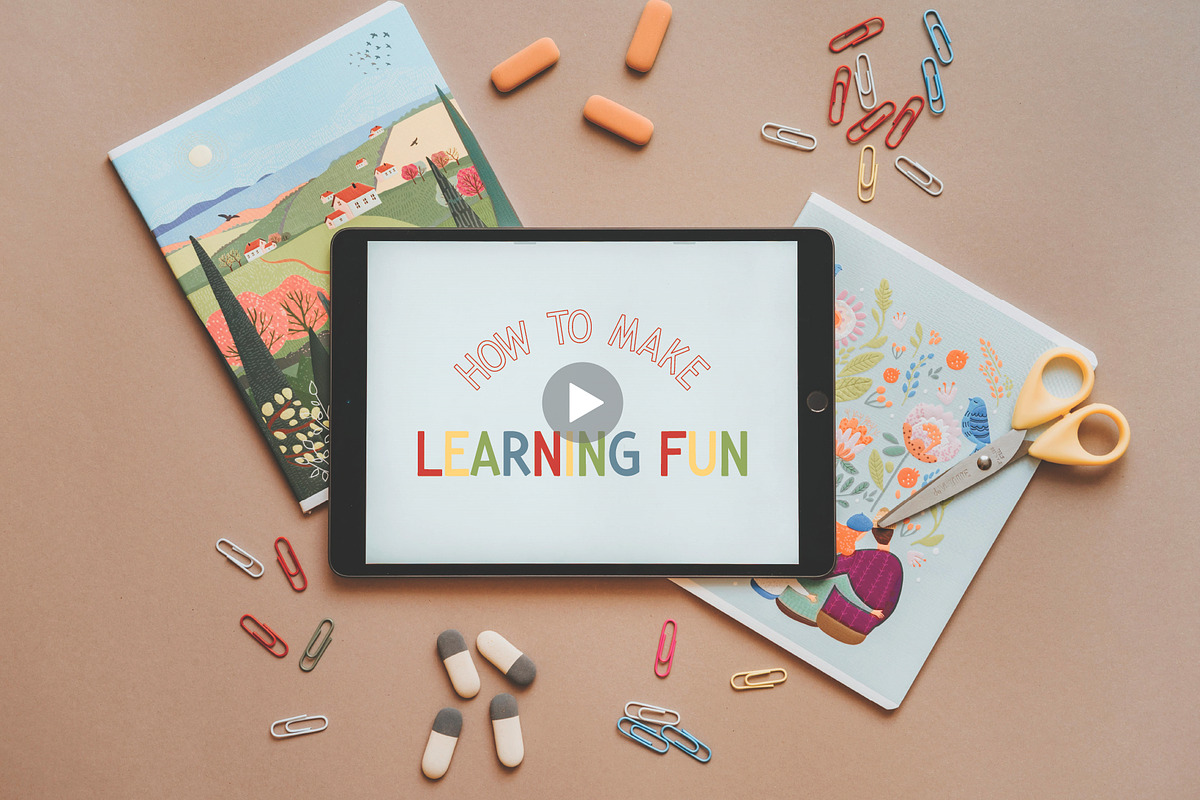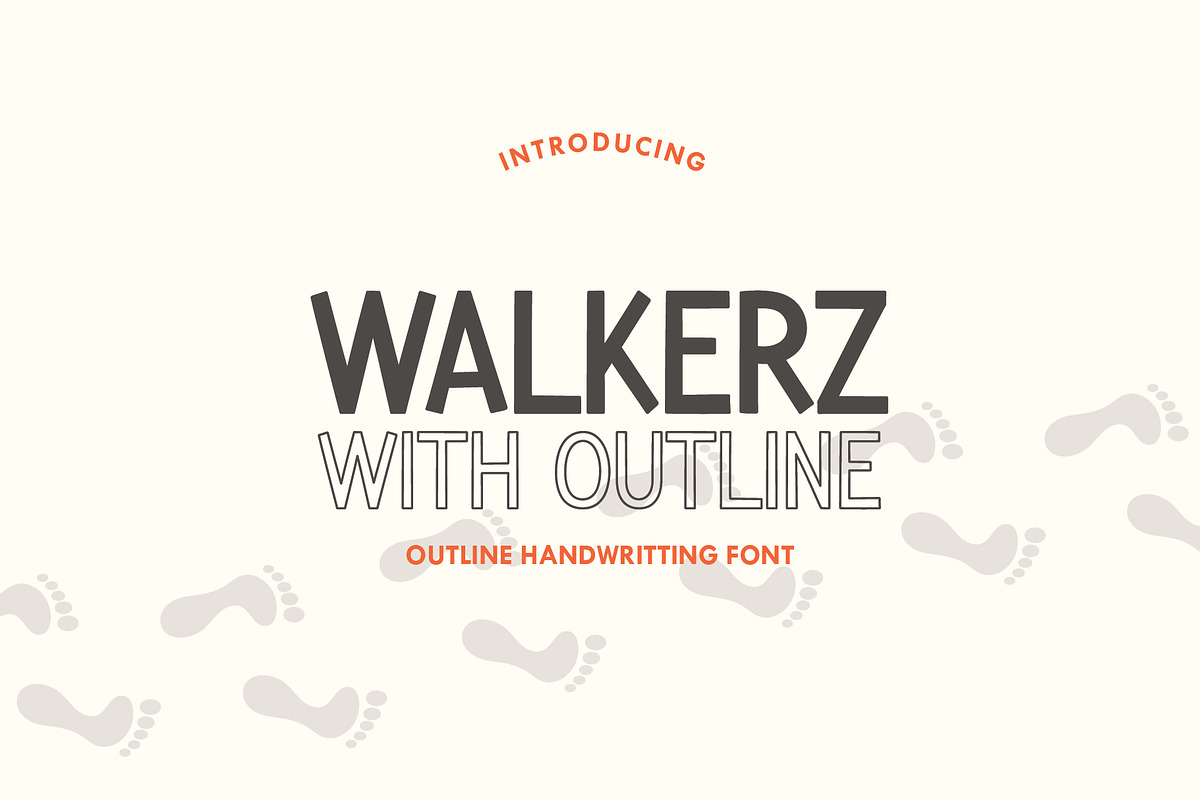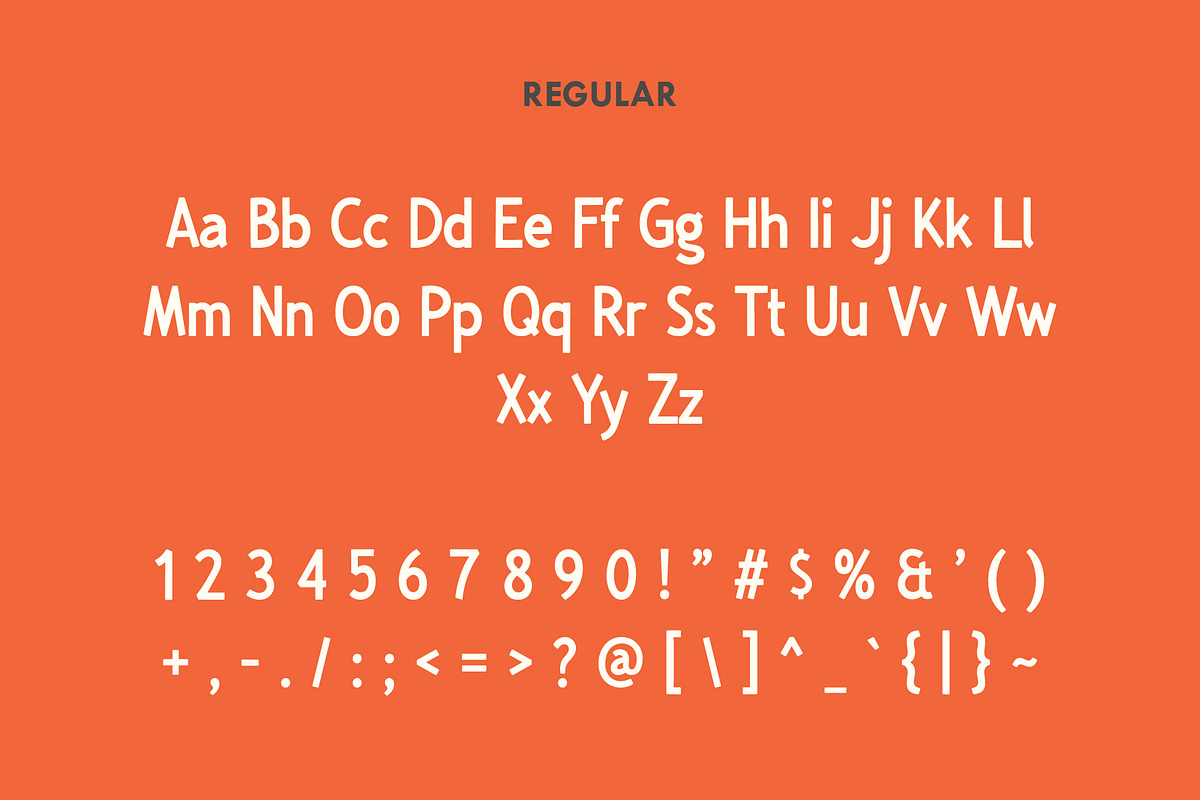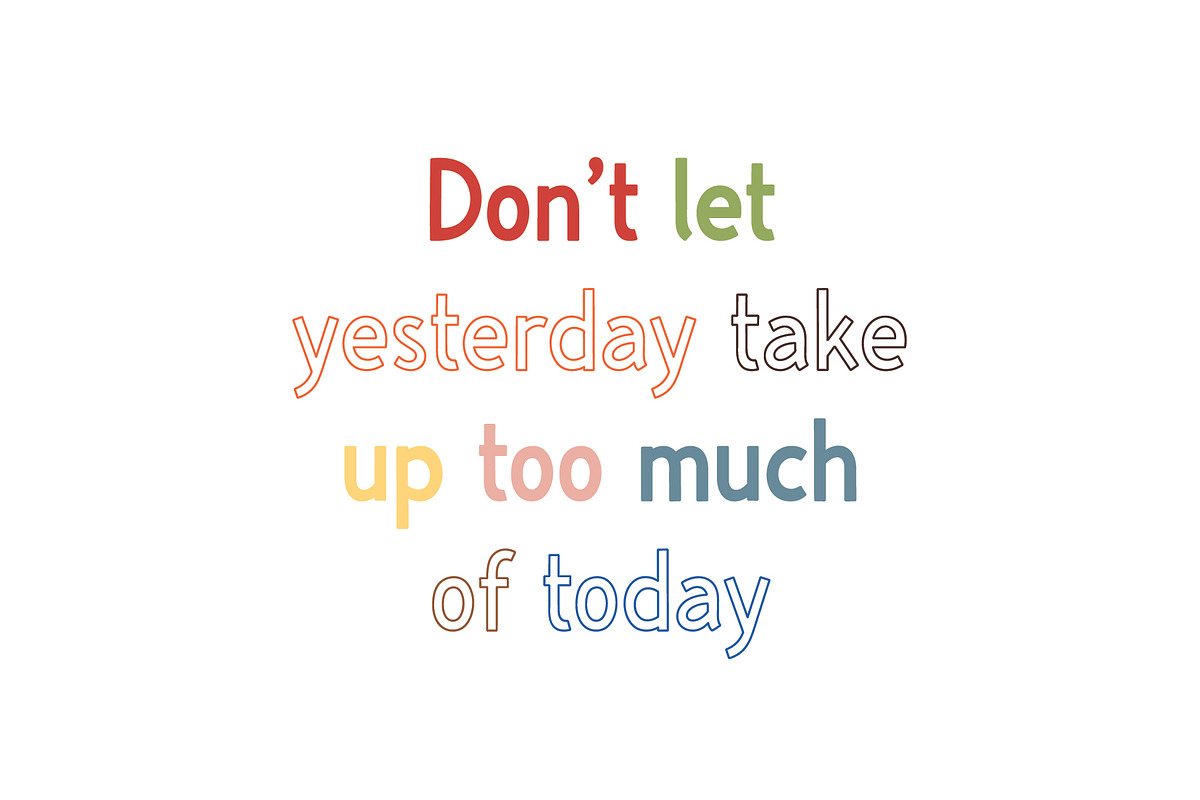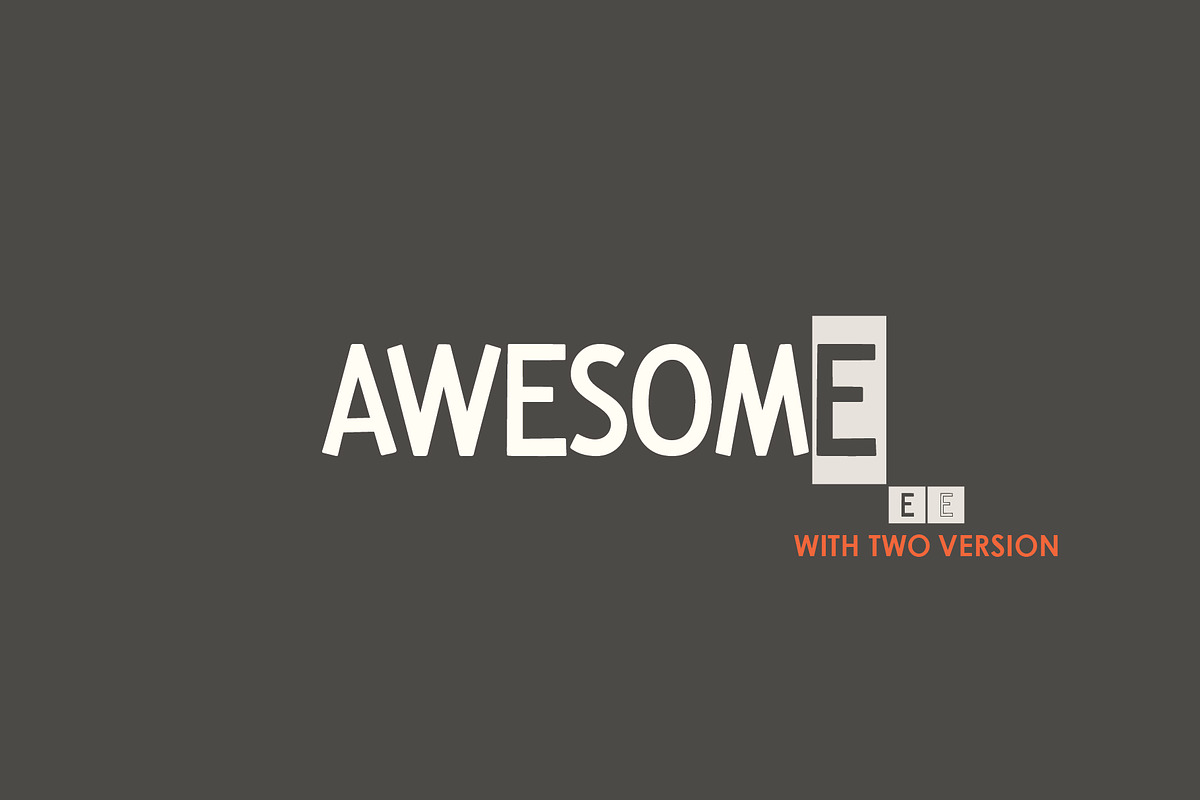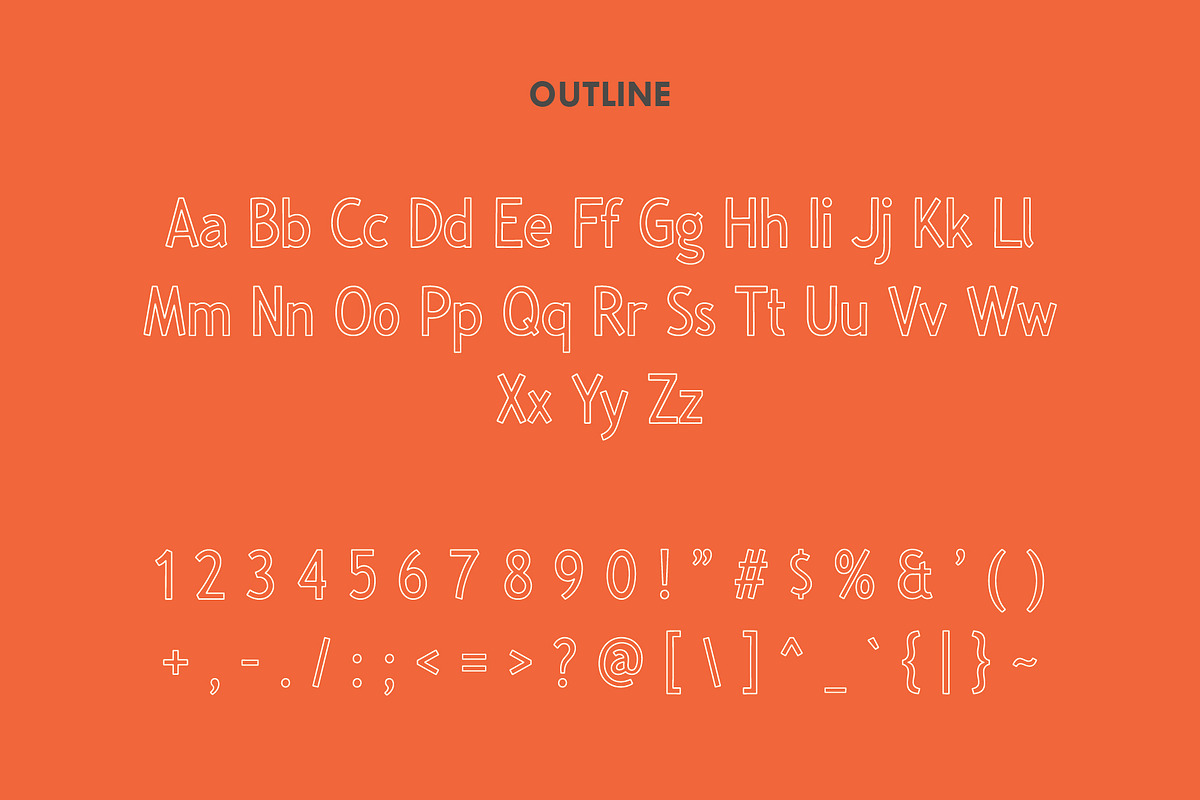
Walkerz - Sans Serif Font
Are you tired of using the same old boring fonts? Do you want to add some edge and personality to your designs? Look no further than WALKERZ, the handcrafted sans serif font that’s about to revolutionize your design game!
Uppercase and lowercase letters Numbers Basic punctuation marks Outline version Hurry! Get WALKERZ Today and Start Creating Designs That Will Change the Game